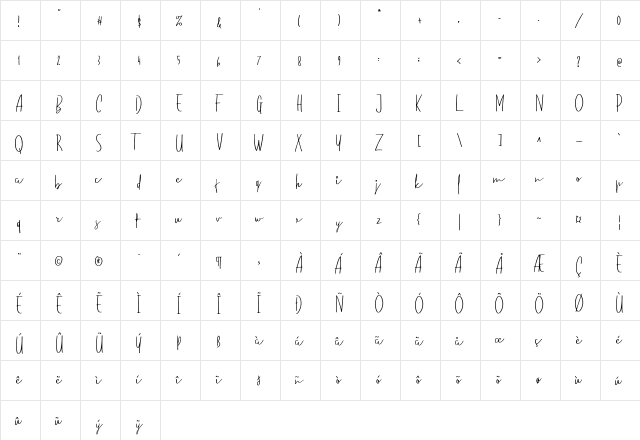
standard pilot demo Regular
Foundry semuthitam creative
Foundrysemuthitam creative
Designerjunart
Design Context for standard pilot demo Typeface
standard pilot demo is a composed and adaptable typeface that performs quietly and consistently across a wide range of design contexts.